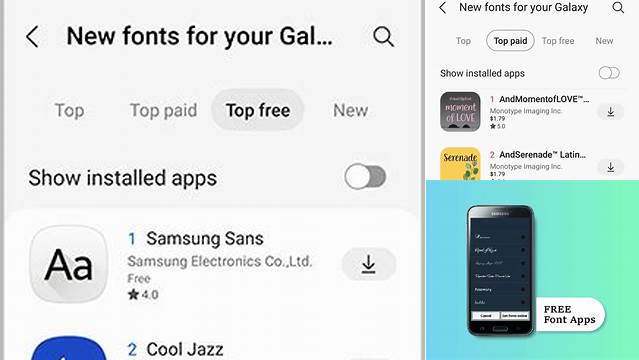
Free Fonts: Best Downloads For Android Samsung
Hey guys! Ever feel like your phone's looking a little…blah? You stare at the same old font day in and day out, and it just doesn't spark joy anymore. Well, you're in luck! One of the easiest ways to breathe new life into your Android Samsung phone is by changing the font. And the best part? You don't have to spend a dime! There's a treasure trove of amazing free fonts out there just waiting to be discovered.
In this article, we're going to dive deep into the world of free fonts for Android Samsung phones. We'll explore where to find them, how to install them, and even highlight some of our absolute favorites. Get ready to say goodbye to font boredom and hello to a personalized phone experience that truly reflects your style!
Why Change Your Font?
Before we jump into the how-to, let's talk about the why. Why bother changing your font in the first place? Well, there are actually several compelling reasons:
- Personalization: Your phone is an extension of you, so why not make it look like it? Changing the font is a fantastic way to inject your personality into your device. Whether you're into sleek and modern, playful and quirky, or classic and elegant, there's a font out there that perfectly matches your vibe. Think of it as giving your phone a mini-makeover, without spending a ton of money.
- Improved Readability: Sometimes, the default font just doesn't cut it. Maybe it's too small, too thin, or just plain hard to read. Switching to a font that's easier on the eyes can make a world of difference, especially if you spend a lot of time reading on your phone. Consider fonts designed for readability, which often feature clear letterforms and generous spacing. A legible font can reduce eye strain and improve your overall user experience.
- Fresh Look and Feel: Let's be honest, we all get tired of the same old things eventually. Changing your font is a simple way to give your phone a fresh, new look and feel. It's like redecorating a room without having to move any furniture! Just a small tweak can significantly impact how you perceive your device. A new font can revitalize your phone's interface, making it more enjoyable to use. Plus, it’s a fun way to keep things interesting and prevent your phone from feeling stale.
So, changing your font is not just about aesthetics; it's about enhancing your overall phone experience. It's a simple yet powerful way to personalize your device, improve readability, and keep things fresh. Let's get started on finding the perfect font for you!
Where to Find Free Fonts for Android Samsung Phones
Alright, let's get to the good stuff! You're probably wondering, "Where can I actually find these amazing free fonts?" Don't worry, there are several fantastic sources to explore. Here are some of the best places to find free fonts for your Android Samsung phone:
- Samsung Galaxy Themes Store: Did you know Samsung has its own app store dedicated to themes, wallpapers, and fonts? It's true! The Galaxy Themes Store is a goldmine of customization options, and it includes a decent selection of free fonts. This is often the easiest and safest place to start, as the fonts are specifically designed to work with your Samsung device. Plus, browsing the store is a breeze. You can preview fonts directly on your screen, so you know exactly what you're getting before you download. The store is regularly updated with new fonts, ensuring a fresh selection to choose from. Keep an eye out for special promotions where premium fonts might be offered for free for a limited time. This built-in option provides convenience and peace of mind, knowing the fonts are compatible with your system.
- Google Play Store: The Google Play Store isn't just for apps and games; it also hosts a variety of font apps. Search for "fonts for Android," and you'll find a plethora of options. Many of these apps offer a curated selection of free fonts, making it easy to browse and install them. Just be sure to read the reviews and check the app's permissions before installing anything from third-party developers. This ensures the app is reputable and won't compromise your phone's security. Many of these apps categorize fonts by style, such as sans-serif, serif, script, and decorative, making it easier to find the type of font you're looking for. Some apps even offer font previews on different backgrounds and in various sizes, helping you visualize how the font will look on your device. The Play Store provides a wide array of choices, so you're likely to find something that suits your taste.
- Third-Party Websites: The internet is a vast and wonderful place, full of resources for free fonts. Websites like DaFont, FontSpace, and Google Fonts offer an extensive collection of fonts that you can download and install on your Android device. However, it's crucial to exercise caution when downloading fonts from third-party websites. Always download fonts from reputable sources and scan the files for viruses before installing them. This is a crucial step to protect your device from malware. Many of these websites have user reviews and ratings for fonts, which can help you gauge the quality and reliability of a font before downloading. Be sure to check the font's license to ensure it's free for personal use. Some fonts may have licensing restrictions for commercial use, so it's always a good idea to double-check. Third-party websites offer a vast library of fonts, allowing you to explore a diverse range of styles and designs.
Remember to always prioritize safety when downloading fonts from the internet. Stick to reputable sources, read reviews, and scan files to ensure a smooth and secure font-changing experience.